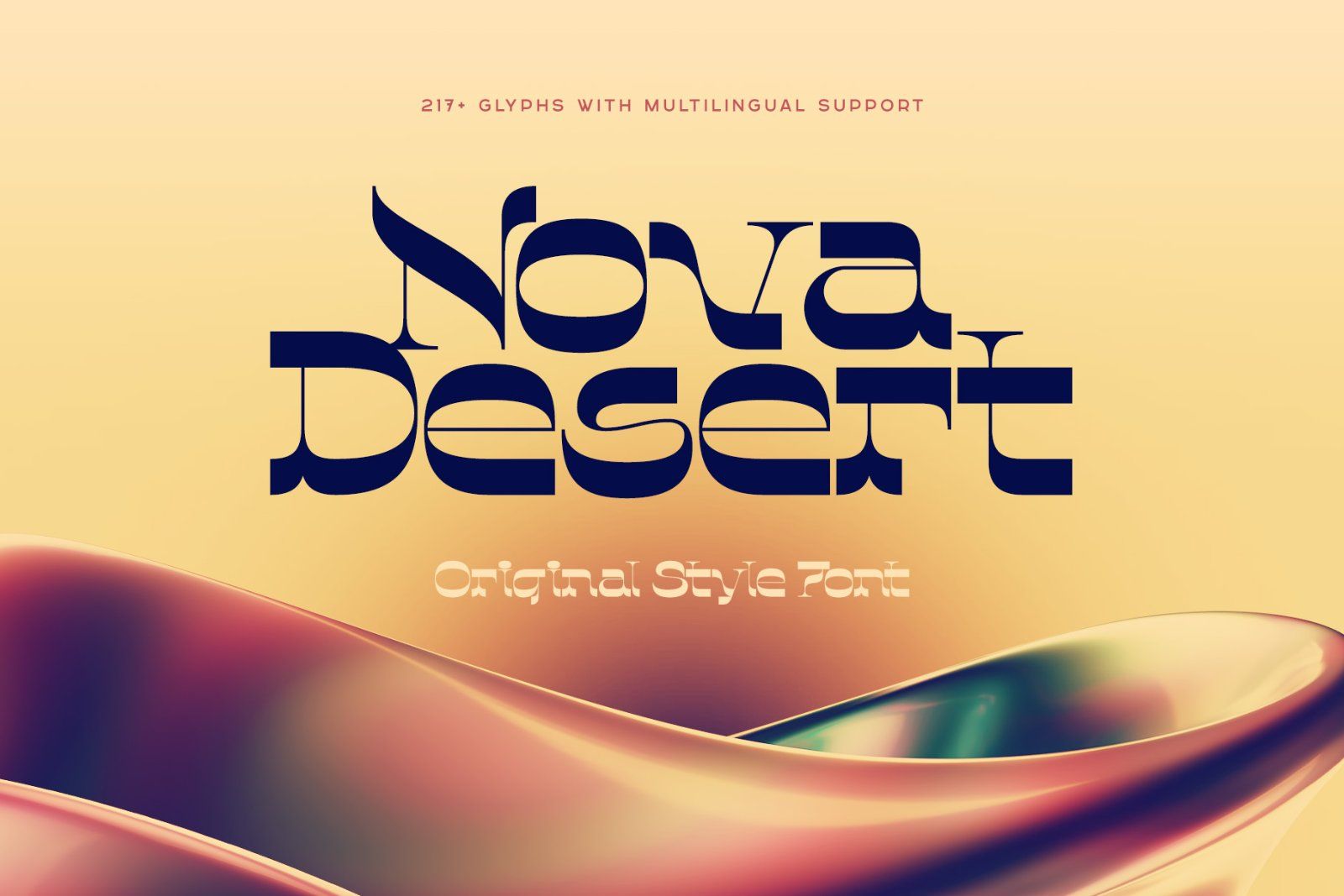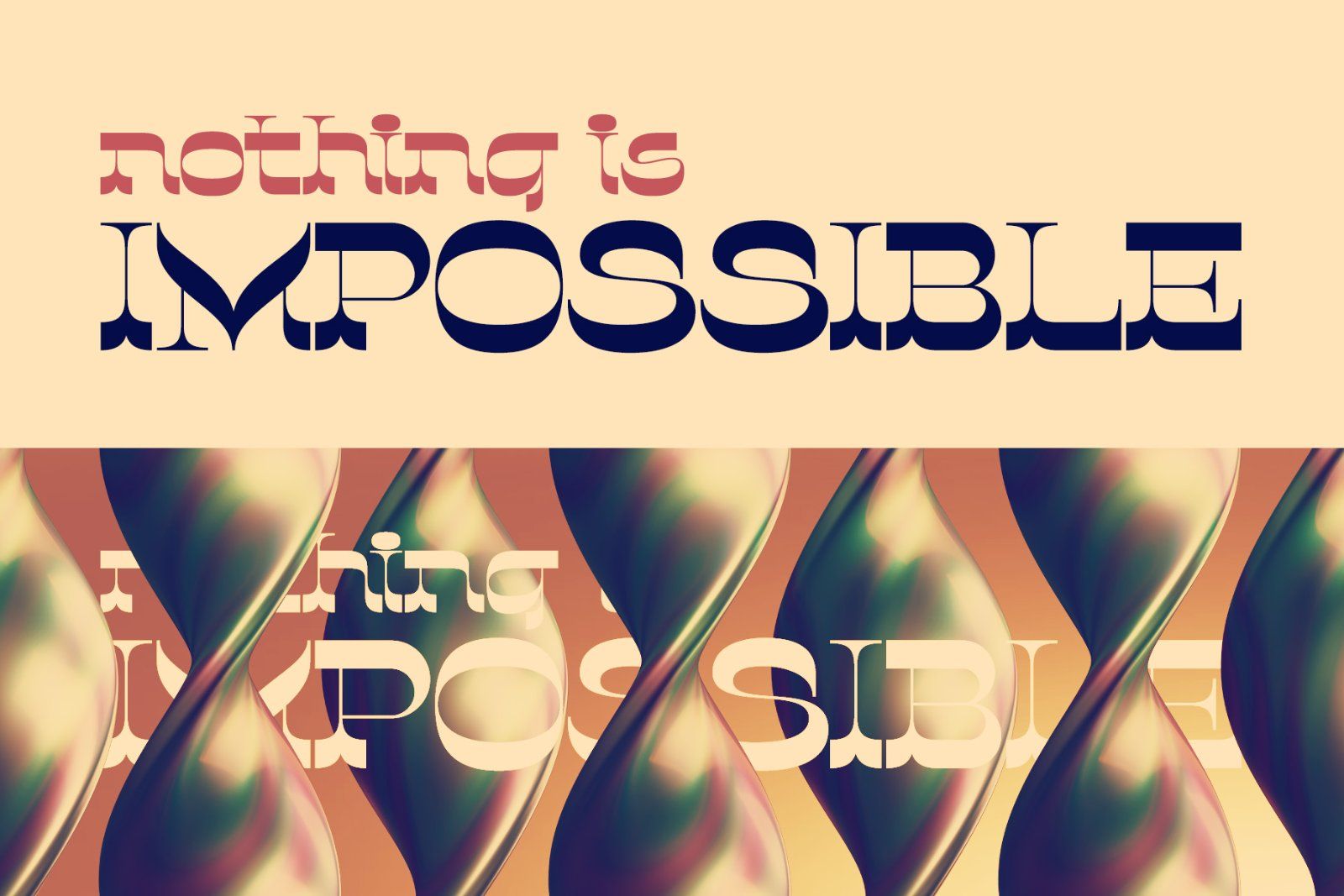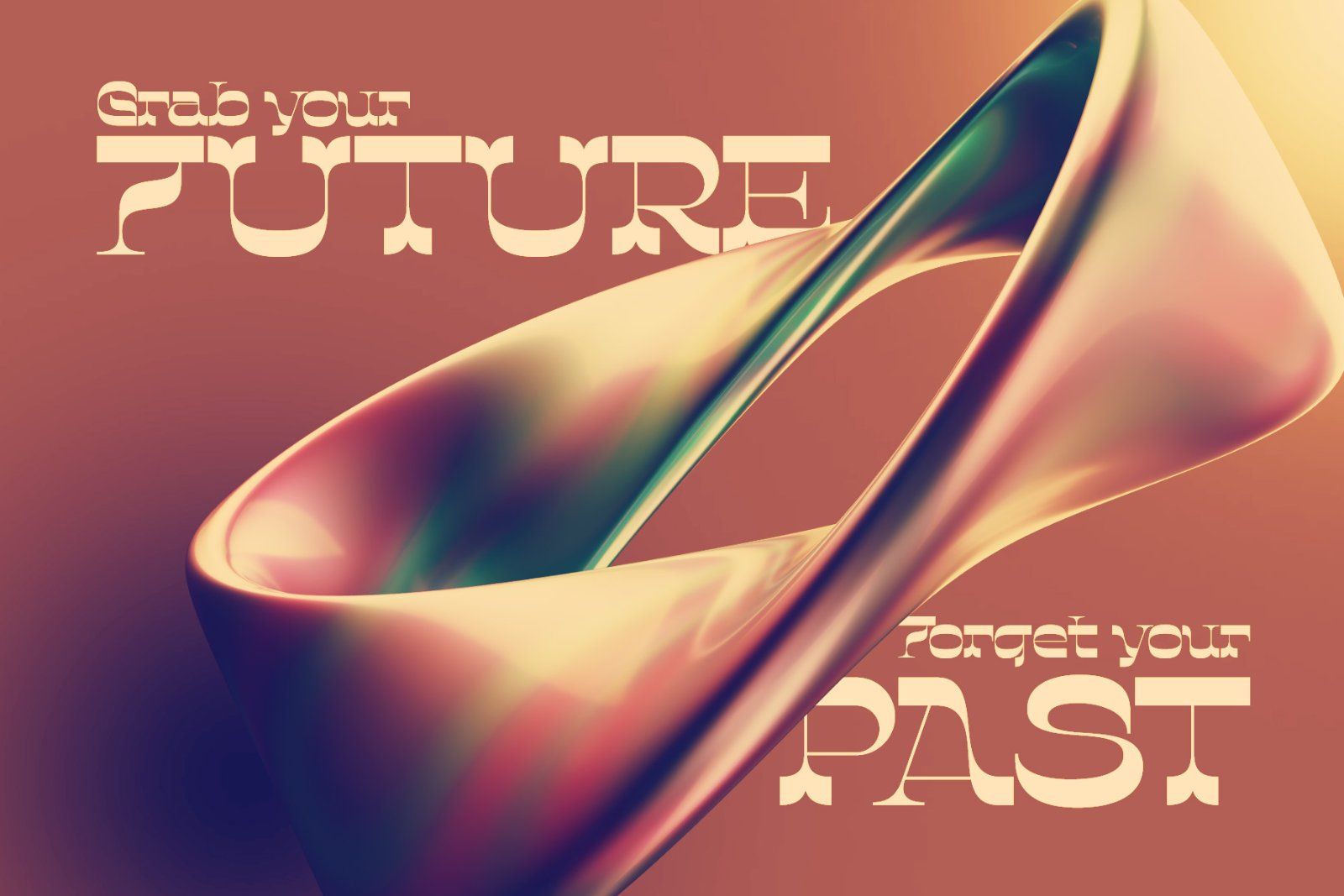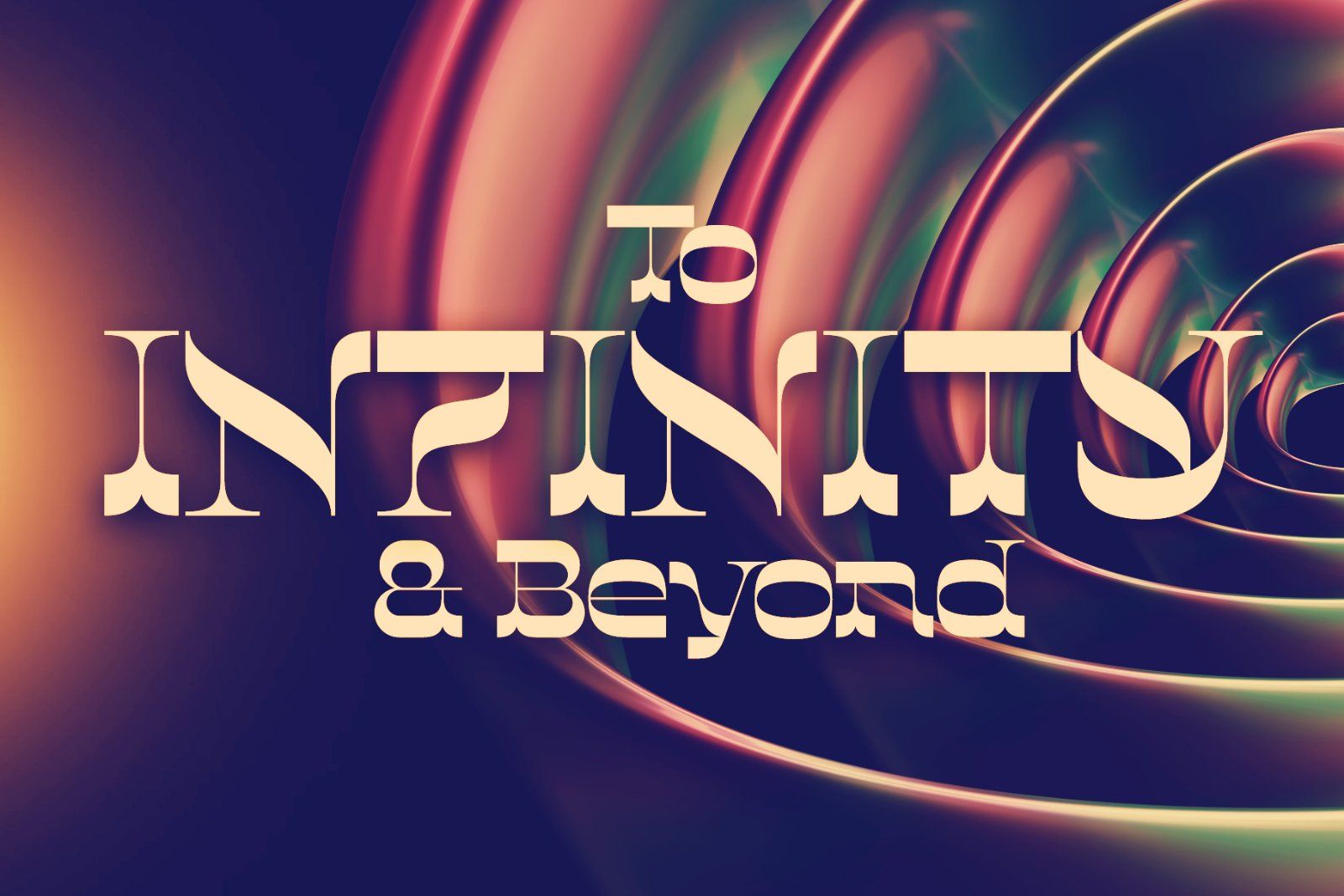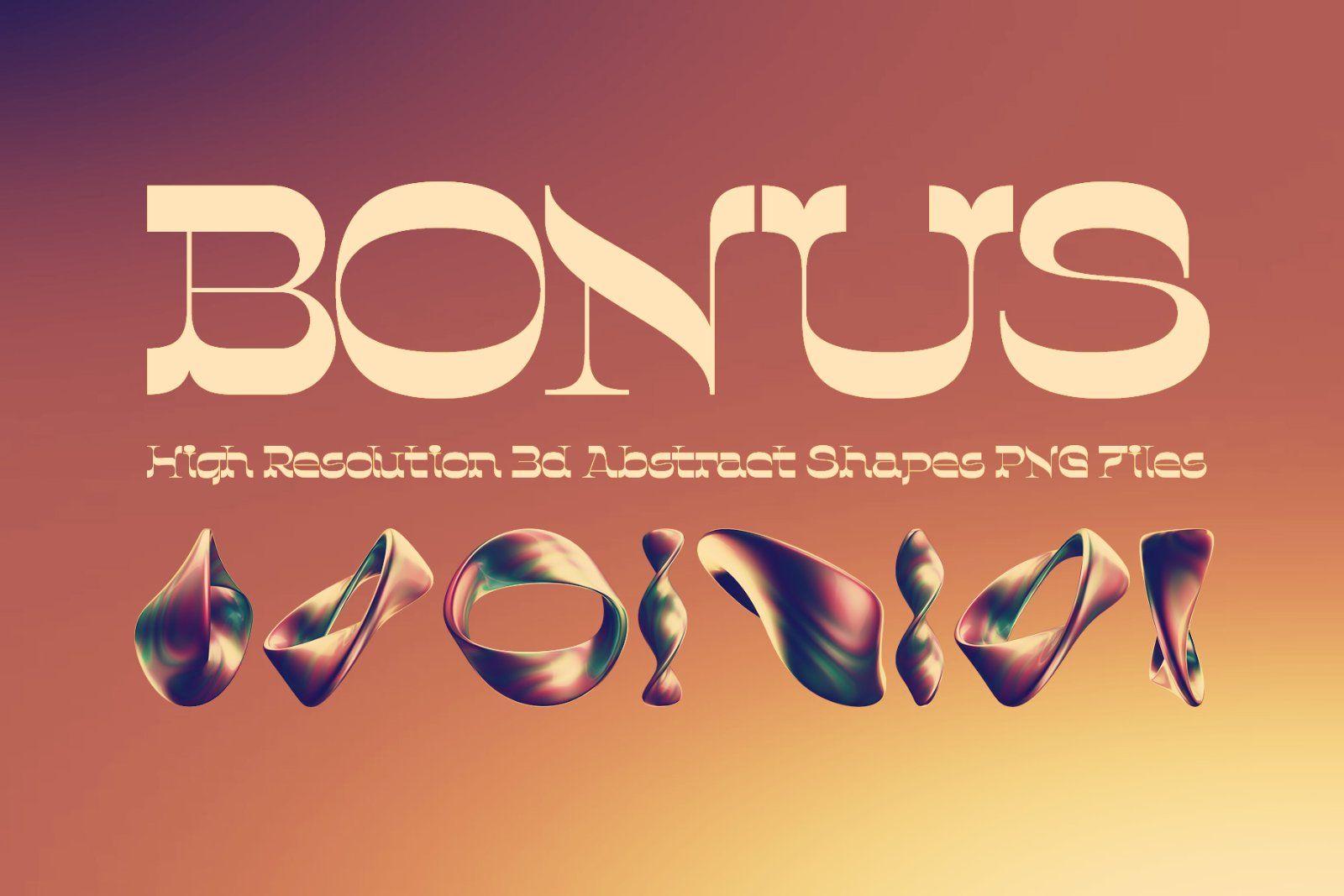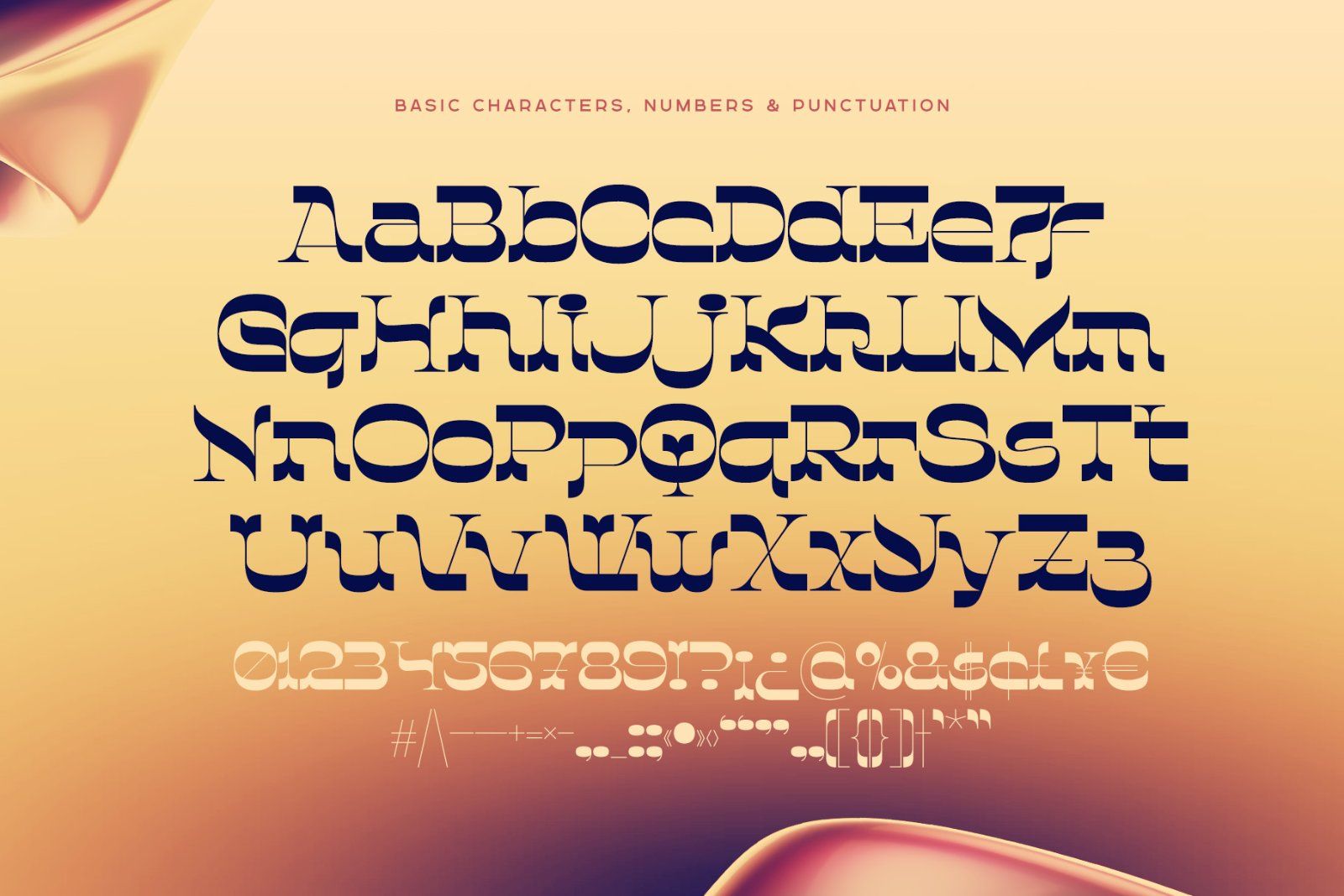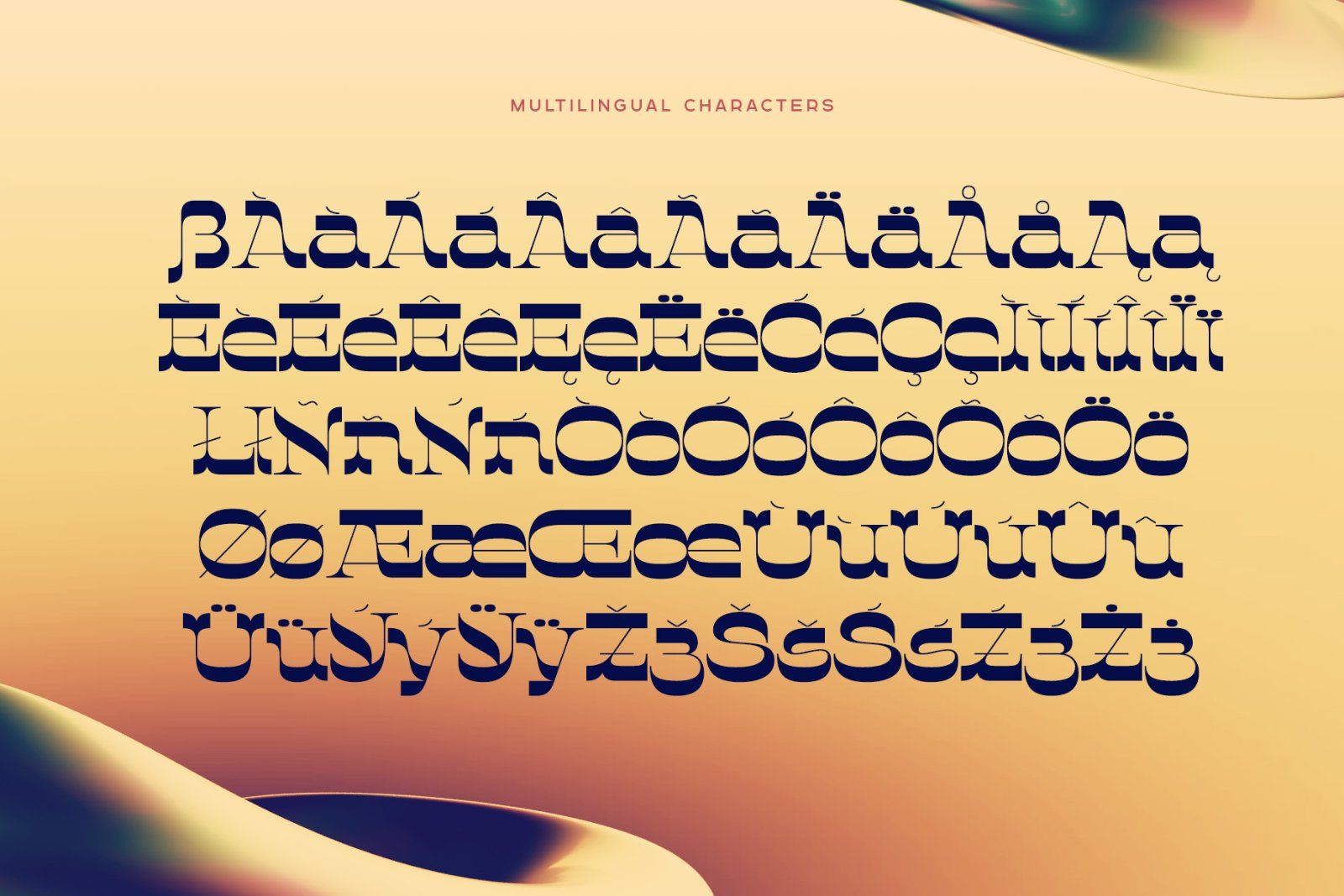
MarketplaceFontsNova Desert — Original Style font
Hello! Presenting an unusual font — Nova Desert. This typeface has an elegant combination of slab & serif shape with calligraphic notes. Nova Desert font has multilingual support (check out a screenshot with available characters).